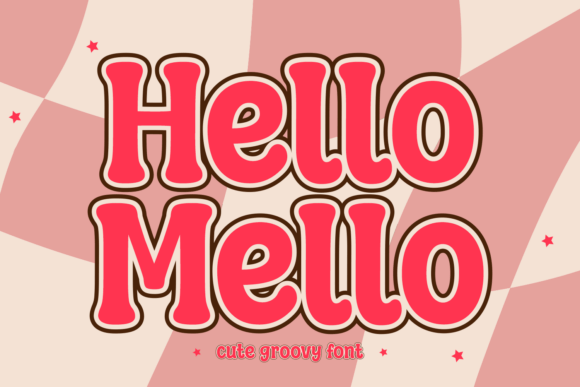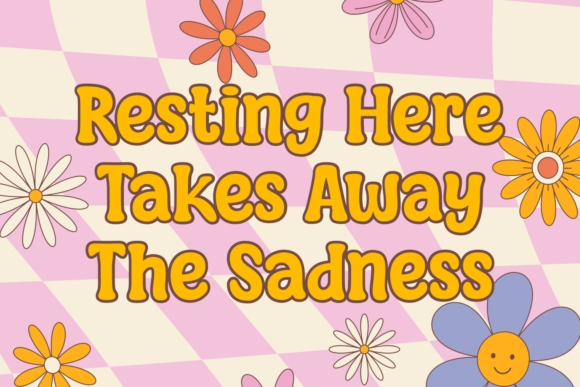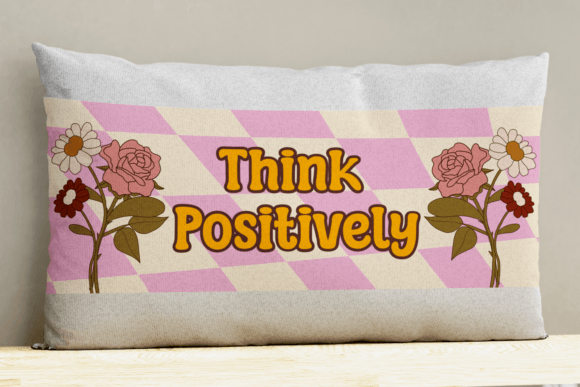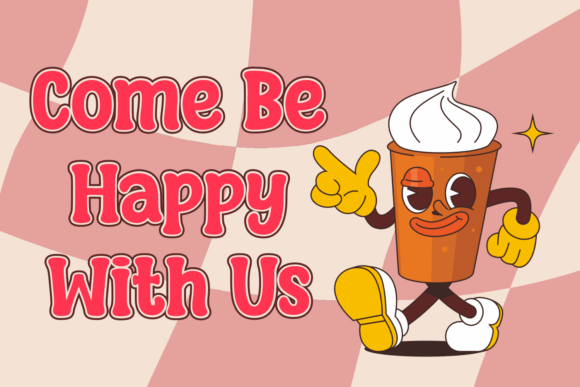
Hello Mello Font: Groovy 70s Retro Font for Cricut & Crafts
About the Hello Mello Font
Make a bold statement with Hello Mello Font, a powerful and memorable font. Immerse yourself in the past while staying on trend with Retrospective, a versatile and expressive font collection. From the Groovy 70s to Vintage aesthetics, Retrospective enhances your designs with its rich, chunky contours. Perfectly suited for Valentine’s Day prints or stirs a sense of nostalgia, this distinctive typeface is artful enough for sublimation crafting, yet functional enough for modern branding.
Whether fashioning unique prints, elegant shirts, or dynamic banners, Retrospective accommodates with style and charm. Looking to create captivating Serif or Sans Serif content for social media? Or perhaps you need a playful, handwritten script for spring, summer, winter, or autumn-themed designs? Retrospective delivers with ease, serving as your one-stop solution for all seasons.
Trendy but timeless, funky but functional, it offers script, dingbat, and decorative options complementing both business and personal projects. Embellish signs with beauty, brighten up lettering, or add a touch of nature to cartoons. Retrospective is also your festive companion, featuring unique versions perfect for Christmas or party-themed creations.
From love-infused fonts to sprightly sticker styles, Retrospective is never out of place. Say more with less, and imbue your projects with personality, all year round, with this versatile, elegant, and consistently unique font collection.
Hello Mello Font Usage Examples
Hello Mello Font Example